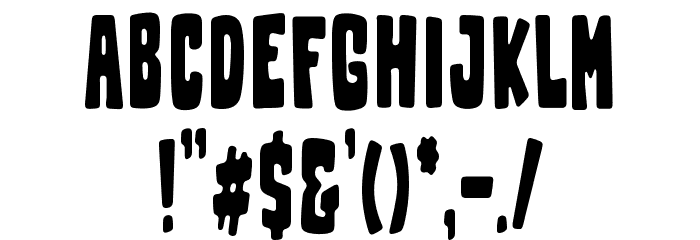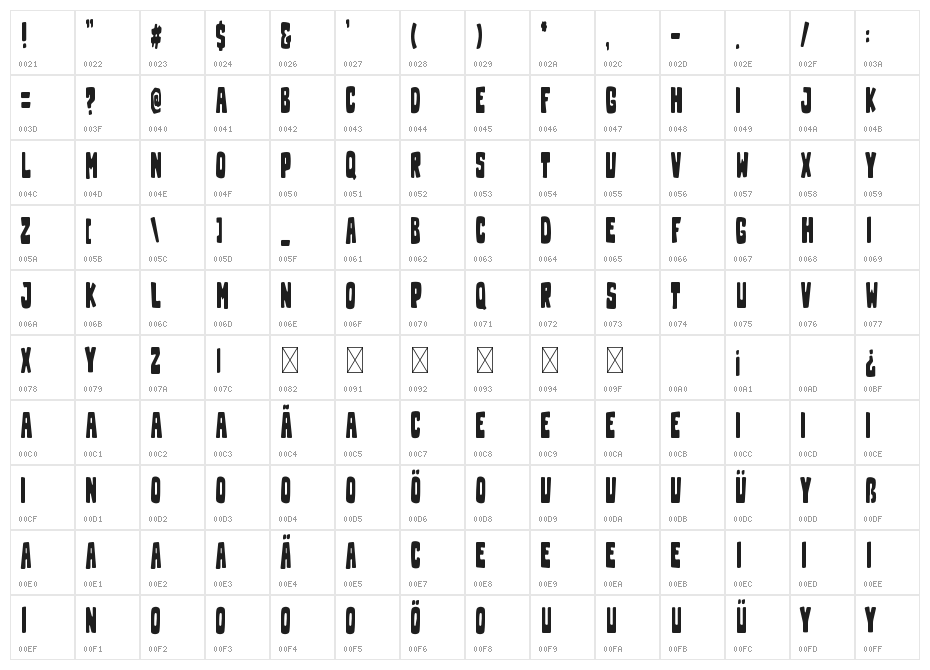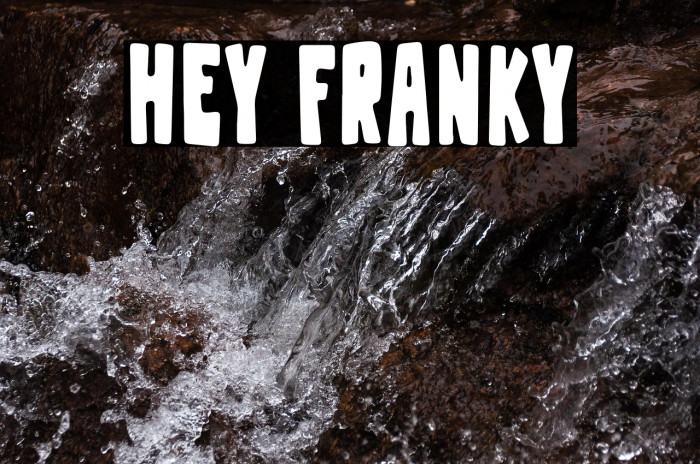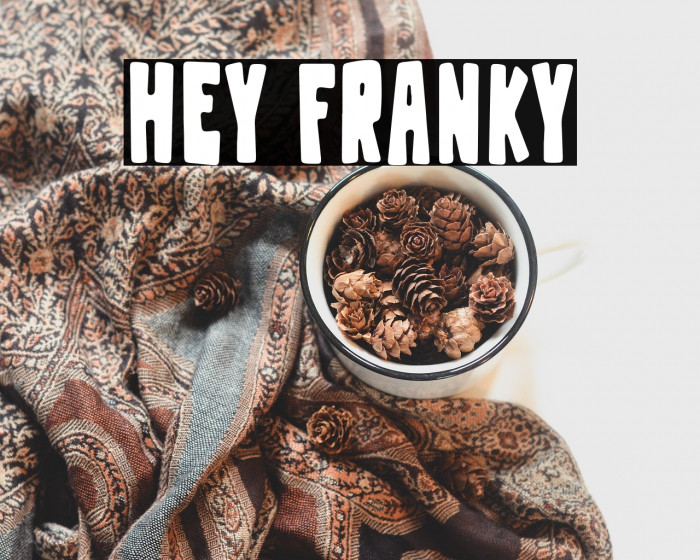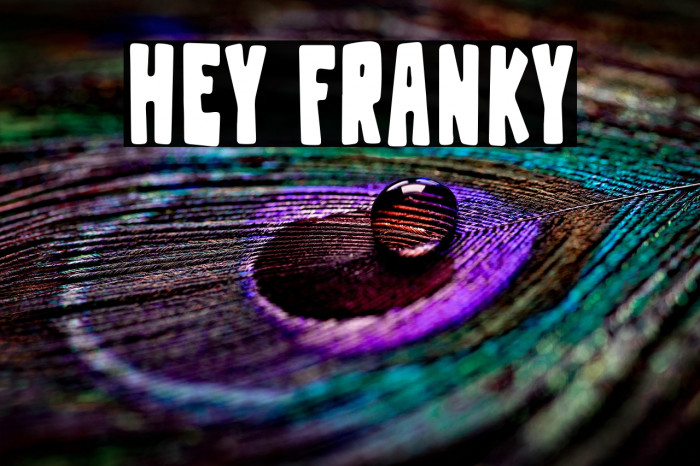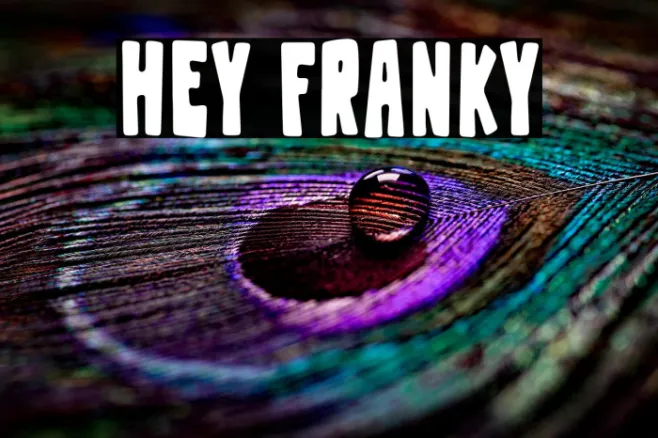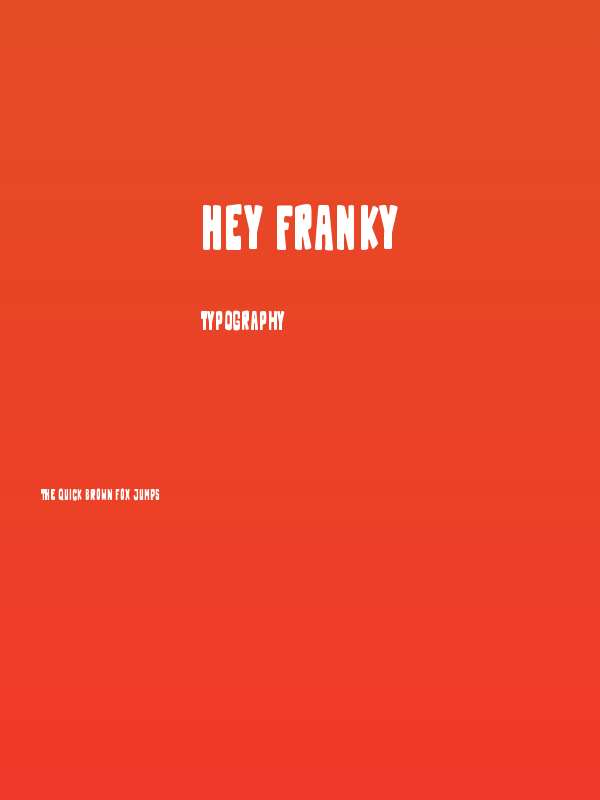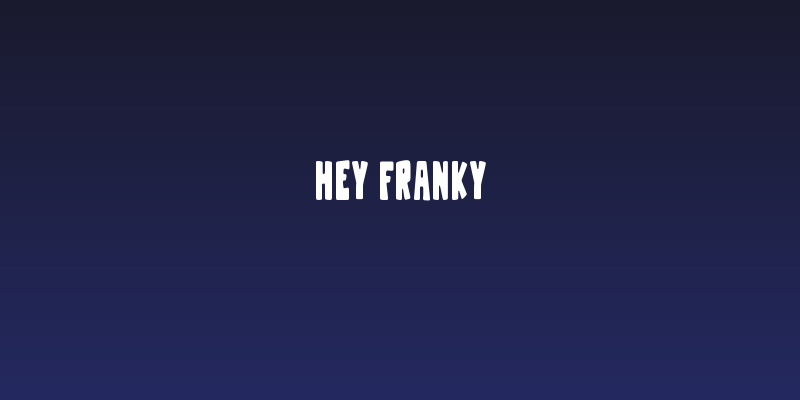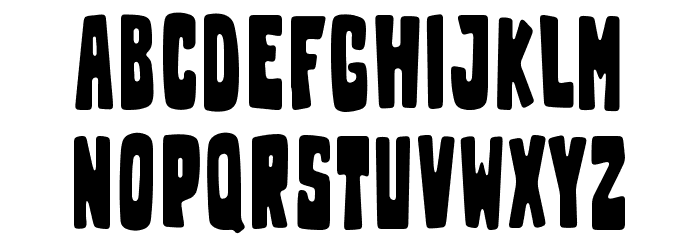
Hey Franky Font
Hey Franky Description
This bold and playful font features thick, rounded characters with a slightly irregular shape, giving it a whimsical and friendly appearance. The uppercase letters are prominent and eye-catching, making them ideal for attention-grabbing designs. The lowercase letters maintain the same boldness, ensuring consistency across text. Numbers and special characters are equally robust, adding to the font's versatility. The overall style is reminiscent of retro or vintage designs, yet it maintains a modern appeal due to its clean lines and uniformity. The font's unique character makes it suitable for creative projects that require a fun and engaging look.
| Overall Style | Playful, Retro, Modern |
| Proposed Projects | Ideal for posters, children's books, logos, and branding materials that require a fun and engaging aesthetic. |